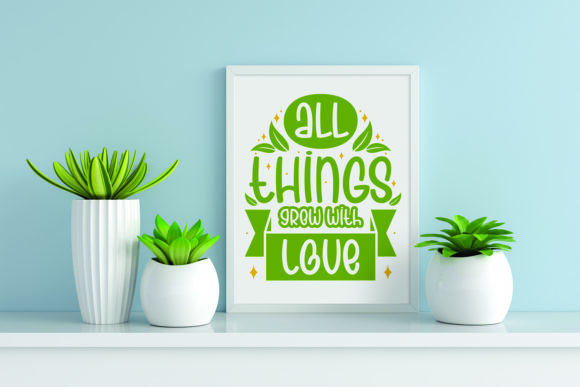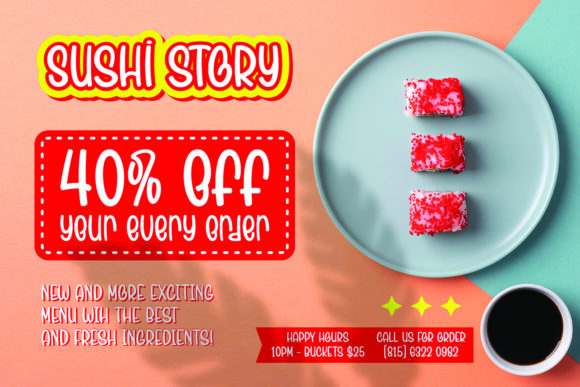
Shirena Beauty Font
db-ku.com - Script & Handwritten -- Shirena Beauty is a bouncy and charming handwritten font. With its incredibly playful characters, this font is sure to elevate the appearance of almost any creation!